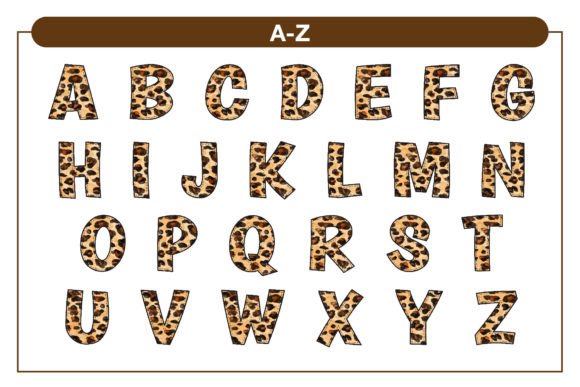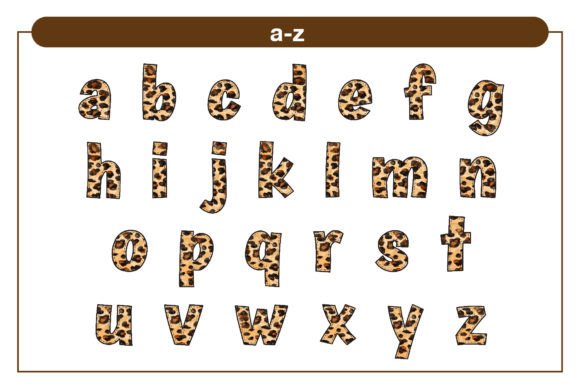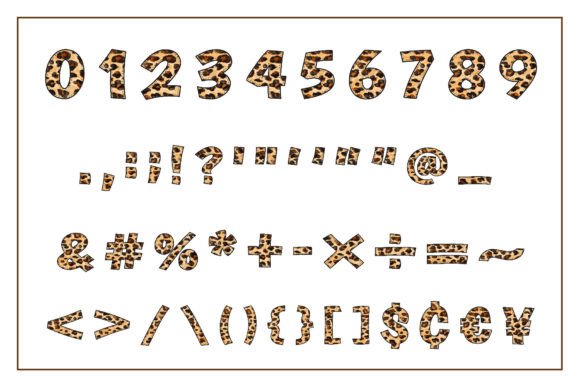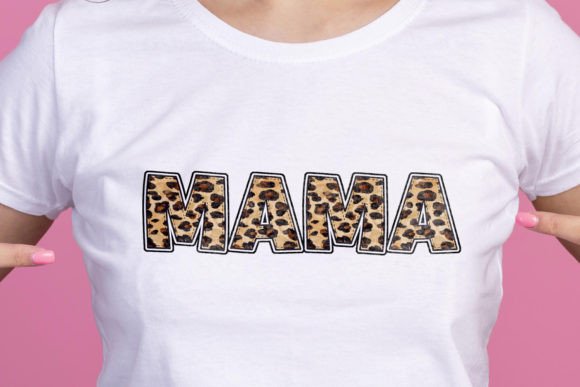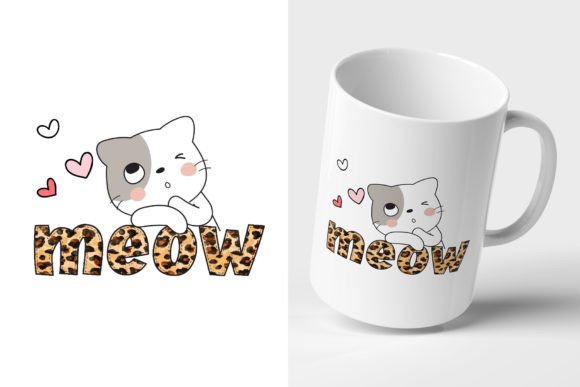
Introducing Fox Bambi Font: The Ultimate Decorative Color Font for Designers and Crafters
Are you looking for a font that can add a touch of fun and coolness to your designs? Look no further than Fox Bambi Font! This decorative color font is perfect for designers and crafters who want to create eye-catching and unique designs for various projects. In this article, we’ll explore the features and benefits of Fox Bambi Font and how you can use it to take your designs to the next level.
What is Fox Bambi Font?
Fox Bambi Font is a decorative color font that is designed to add a touch of fun and playfulness to your designs. It’s a versatile font that can be used for a wide range of projects, including t-shirts, tote bags, hats, stickers, wedding designs, logos, cards, quotes, and more. With its unique and colorful design, Fox Bambi Font is sure to make any creative idea stand out.
Key Features of Fox Bambi Font
- Decorative Color Font: Fox Bambi Font is a decorative color font that comes with a range of colors to choose from. You can use it to create designs that are vibrant, playful, and eye-catching.
- OpenType Full-Color (SVG) Fonts: Fox Bambi Font is an OpenType full-color (SVG) font that can be installed like any normal .otf font. This makes it easy to use and compatible with a range of design software.
Creative Ideas for Using Fox Bambi Font
Fox Bambi Font is a versatile font that can be used for a wide range of projects. Here are some creative ideas to get you started:
- T-Shirts and Apparel: Use Fox Bambi Font to create eye-catching designs for t-shirts, hoodies, and other apparel.
- Tote Bags and Accessories: Use Fox Bambi Font to create fun and colorful designs for tote bags, hats, and other accessories.
- Wedding Designs: Use Fox Bambi Font to create beautiful and unique designs for wedding invitations, wedding cards, and other wedding stationery.
- Logos and Branding: Use Fox Bambi Font to create a unique and memorable logo for your business or brand.
- Cards and Quotes: Use Fox Bambi Font to create inspiring and motivational quotes for social media, greeting cards, and other projects.